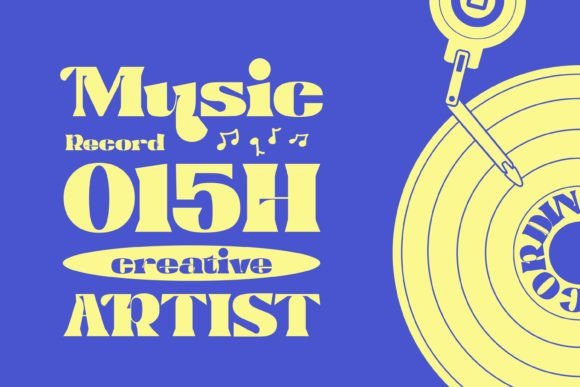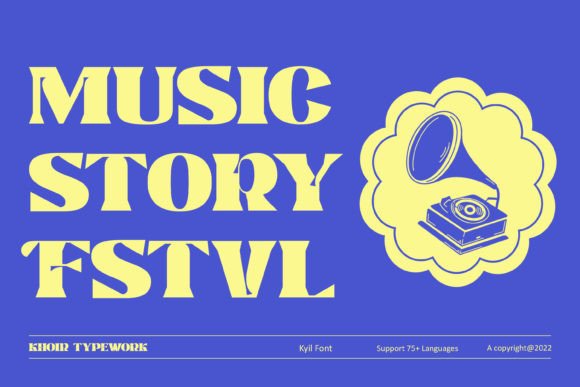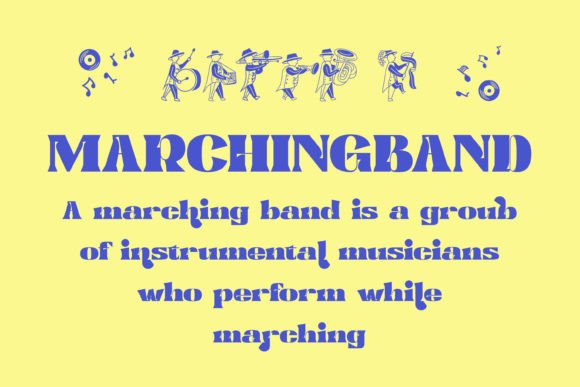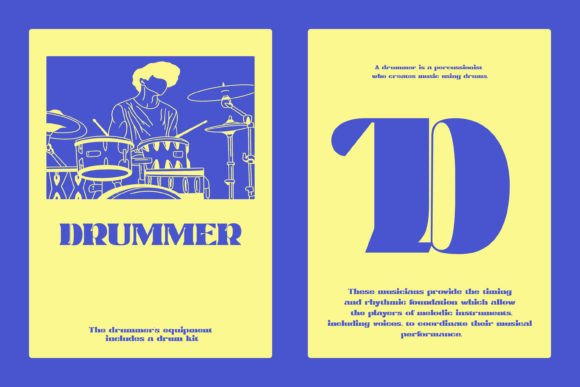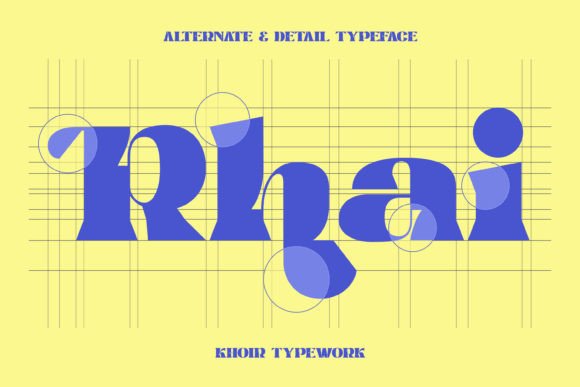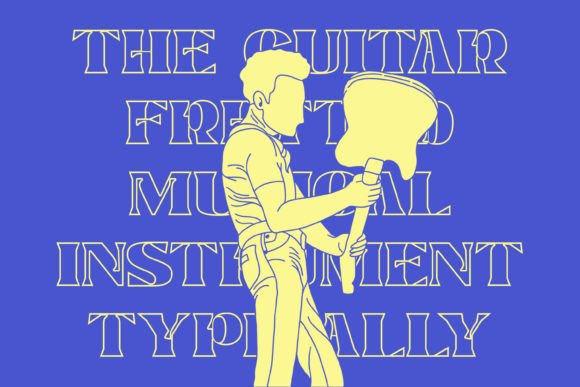
Introduction to Kyil Font Font
Fonts play a crucial role in design, and the Kyil Font font is a typeface that brings both character and versatility to any project. Whether you’re working on a branding project, a website, or a print design, the Kyil Font font offers a unique style that can elevate your work.
Kyil is a bold display font with uniqueness in each letter that is carefully crafted to create a unique look.
It also includes several alternatives that make it easy to meet your digital design needs With this font, you can use it in a variety of ways from designing logos, posters, greeting cards, book covers, social media posts, and other branding needs.
Key Features of Kyil Font Font
Why Choose Kyil Font Font?
The Kyil Font font is more than just a typeface – it’s a design tool that helps you communicate your message with style and clarity. Its unique character set and versatile design make it suitable for a wide range of applications, from elegant invitations to bold headlines.
With its carefully crafted letterforms and balanced proportions, the Kyil Font font ensures readability and visual appeal across all mediums.
What makes Kyil Font font special?
The Kyil Font font stands out with its unique design, exceptional readability, and versatility across various design applications.